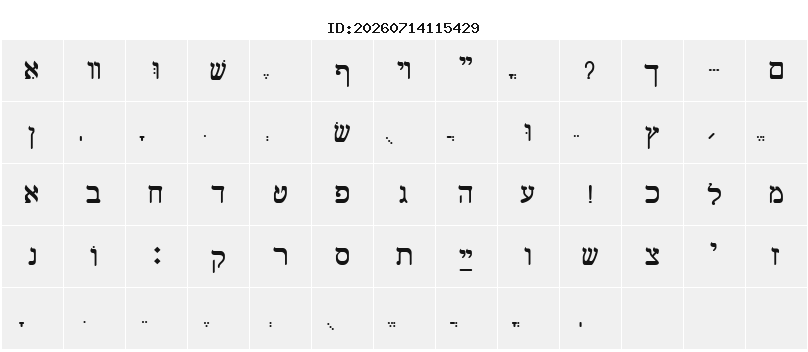
• Font Name: HebrSquare Baecker
• Font Style: ß ÚÿW/¯/I”Χ!
• Full Font Name: HebrSquare Becker
About HebrSquare Baecker.ttf
HebrSquare Baecker.ttf is a modern, elegant sans-serif font designed for ultimate readability and visual harmony. Perfect for branding, headlines, web design, and print materials.